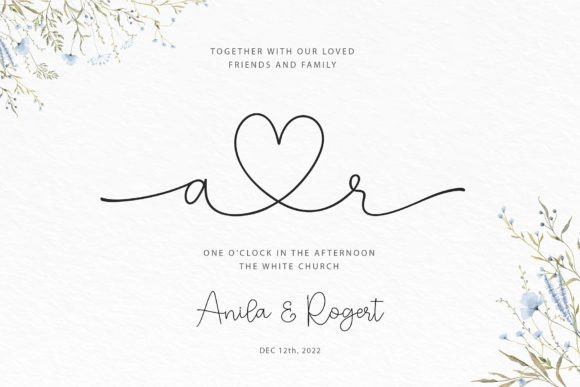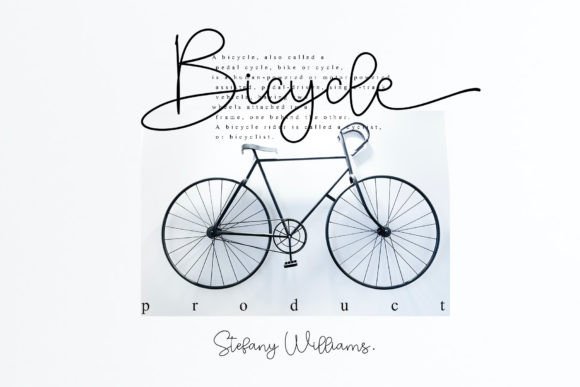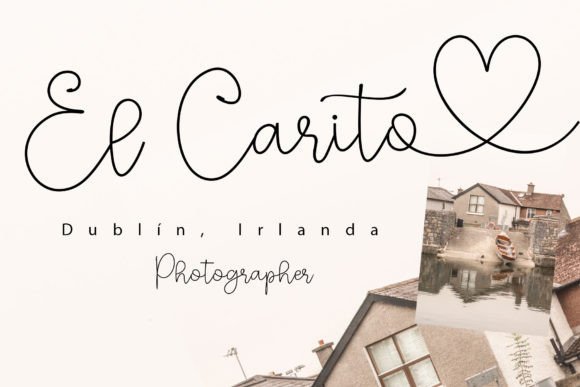
Best Life Font
Best life This cool one-line handwritten font is very stylish and elegant, and has a great style for your work. It comes with hearts in the middle and lovely swashes to beautify your writing. This font is PUA encoded, which means you can access all of the glyphs and swashes with ease!